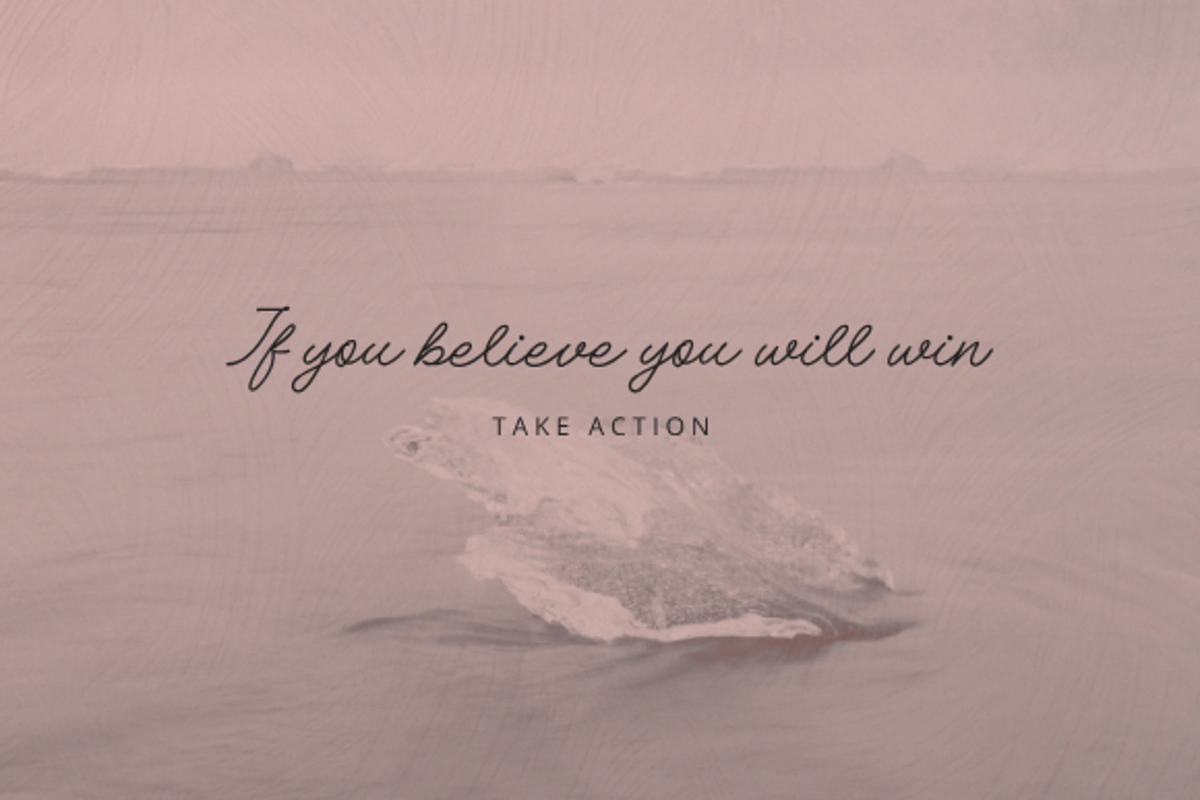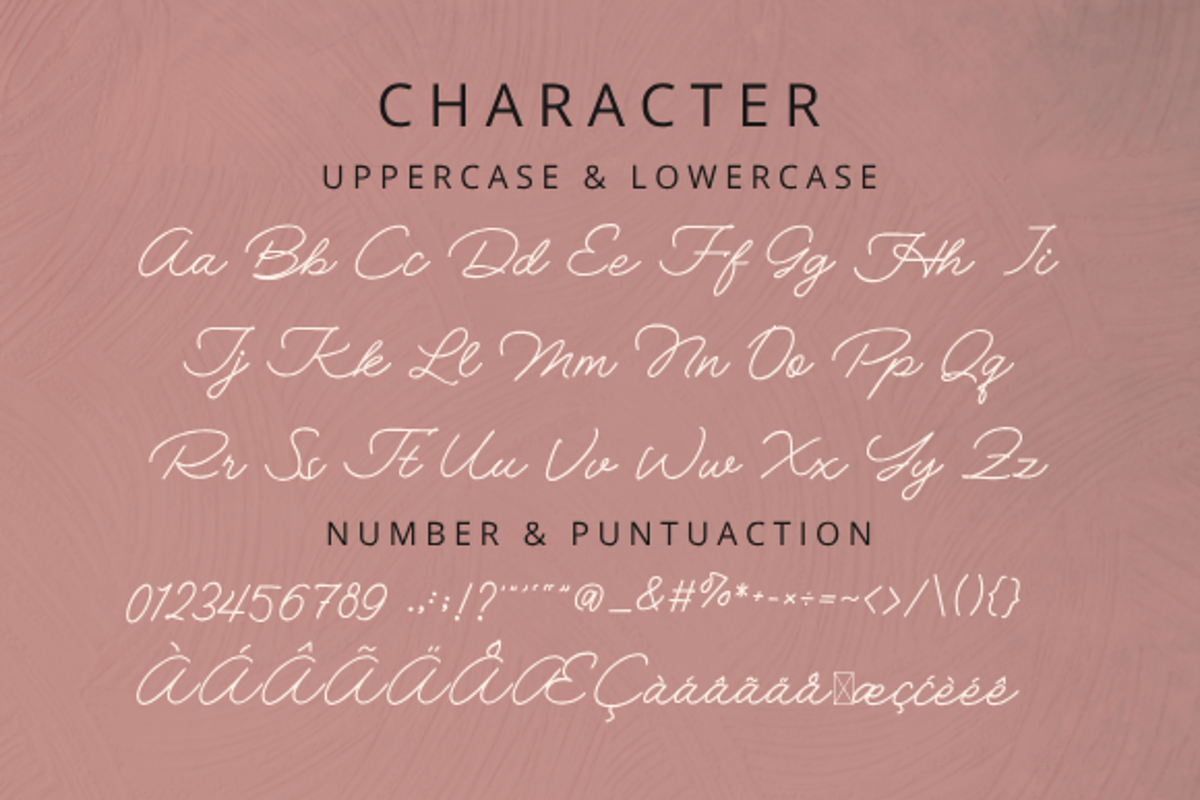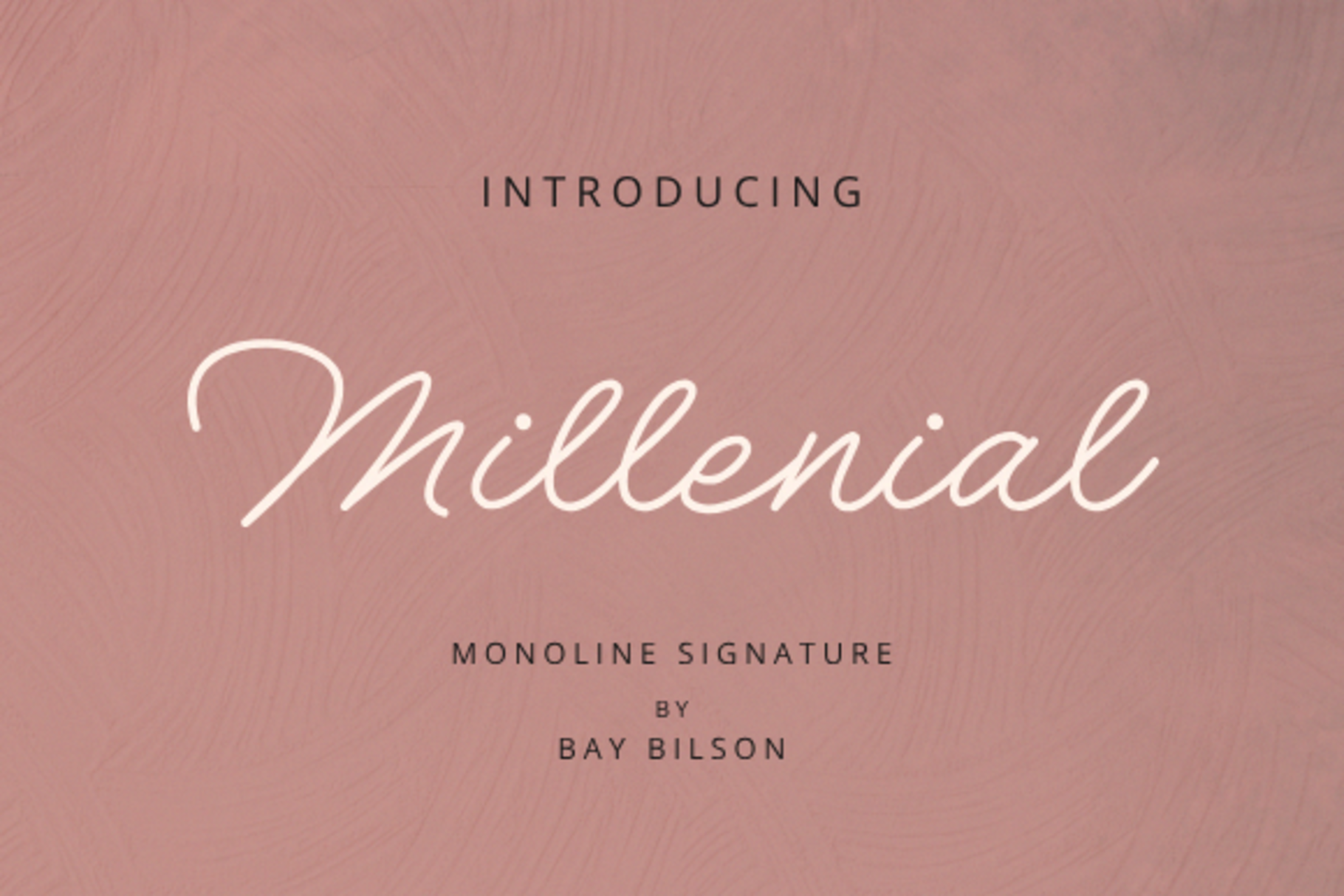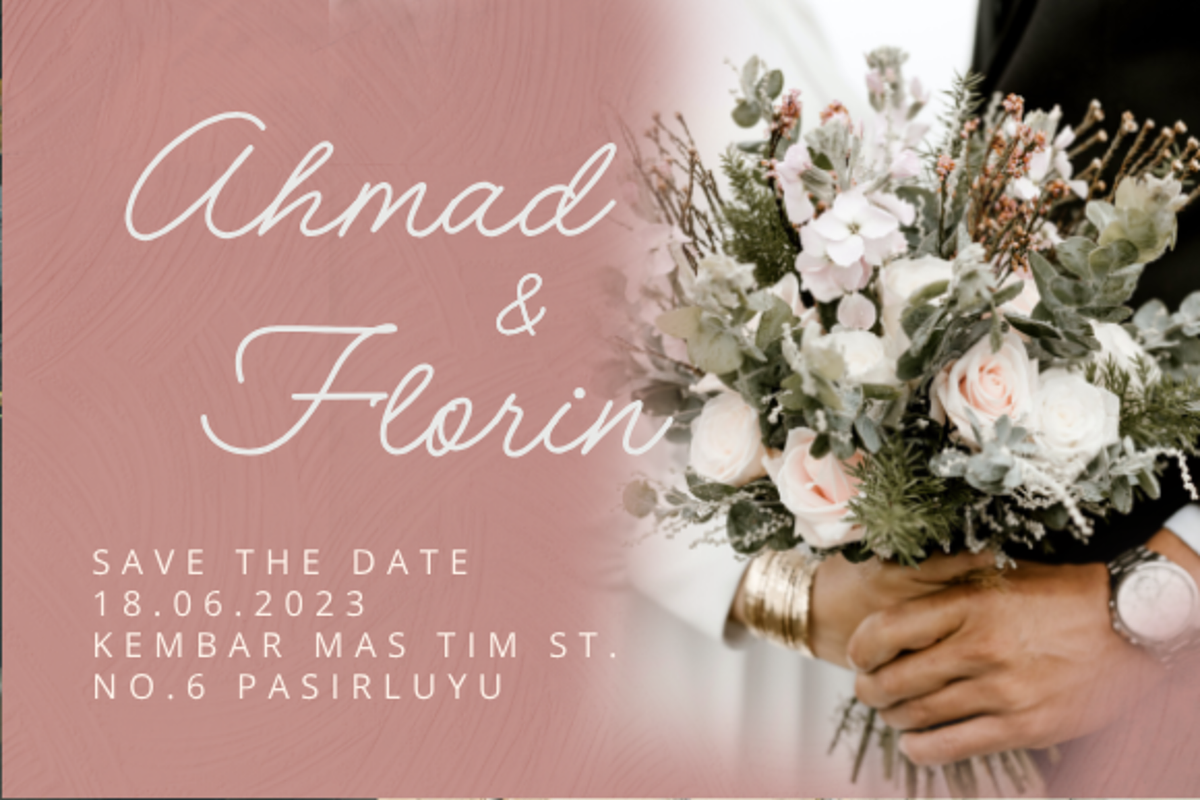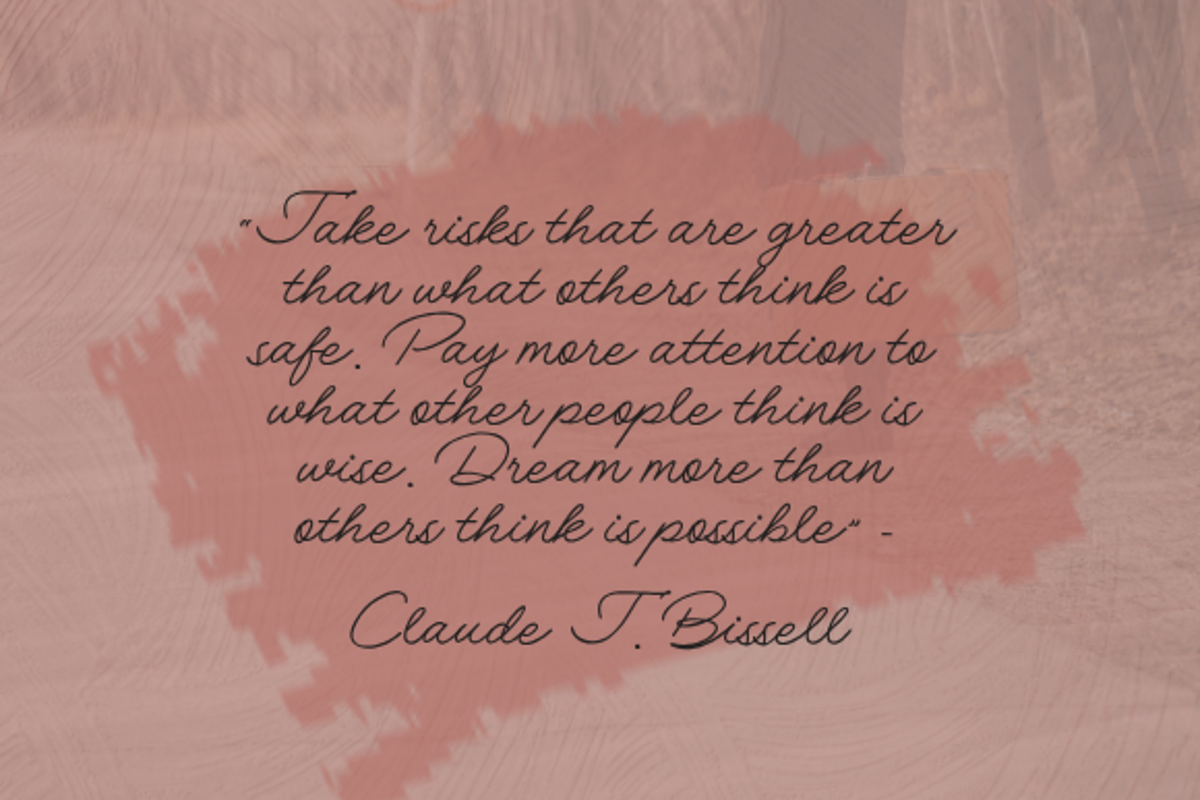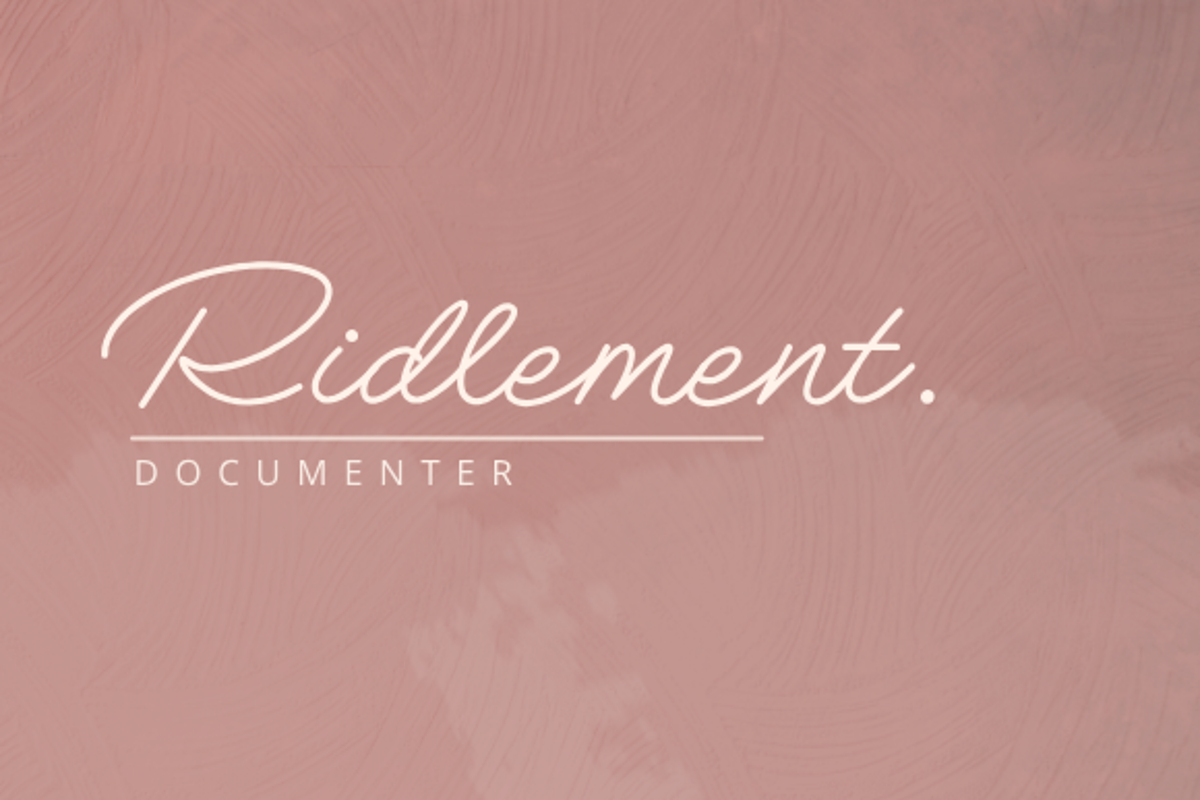
Millenial Monoline Font
The Millennial font is a visual representation of the spirit of today’s generation. Created with a modern and stylish design, this font exudes contemporary attractiveness that follows the latest trends. With its unique and flexible character, Millennial is suitable for a variety of design needs, from social media to company branding. Each letter describes the intelligence, freedom, and spirit of innovation that are characteristic of the millennial generation. With its elegance and freshness of design, the Millennial font will be an ideal choice to make your messages more interesting and up-to-date.
-Full alphabet with Uppercase and Lowercase A-Z for script
-Numbers for all fonts
-Punctuation and symbols for all fonts
-Alternates Lowercase script
-Multilingual support all fonts